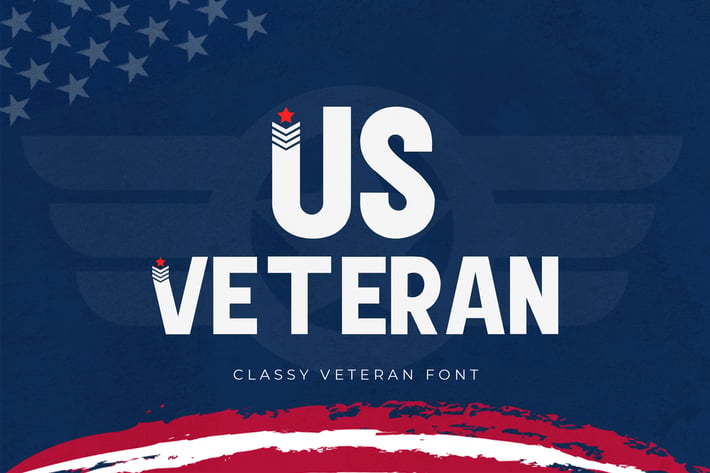
US Veteran - A Classy Veteran Font
US Veteran is a distinguished and timeless font designed to honor the strength, resilience, and pride of veterans. With its strong lines and refined letterforms, US Veteran is perfect for military-themed designs, commemorative posters, patriotic branding, and official documents. This font captures the essence of valor and dignity, ensuring your work stands out with a respectful and authoritative presence.
Crafted with a sense of heritage and pride, US Veteran features bold yet elegant characters that offer excellent readability and a commanding visual impact. Its classy design makes it ideal for both display and text purposes, providing a professional and respectful appearance. The font’s versatility allows it to adapt seamlessly to various design contexts, from digital platforms to printed materials, making it a valuable asset for any designer aiming to create meaningful and impactful visuals.
Elevate your design projects with US Veteran, a font that embodies the spirit of service and honor. Its unique style and adaptability make it an essential addition to any designer’s toolkit for crafting designs that pay tribute to the bravery and dedication of veterans. Enhance your work with US Veteran and experience the dignity of classic typography.